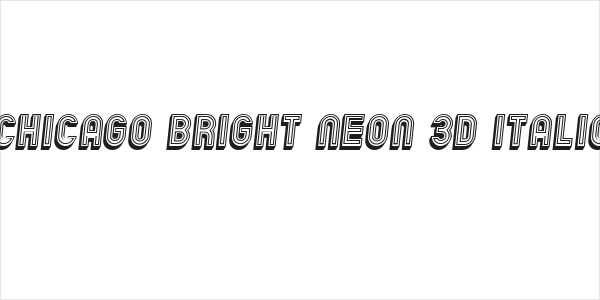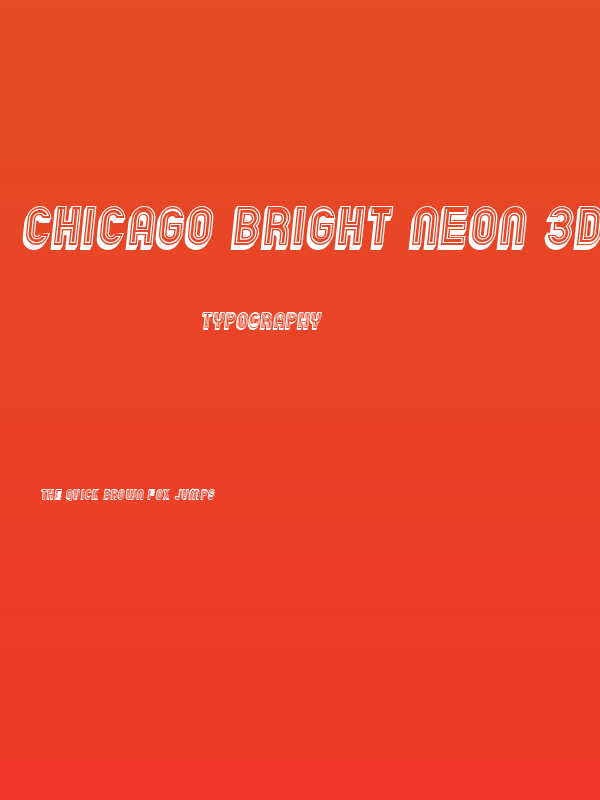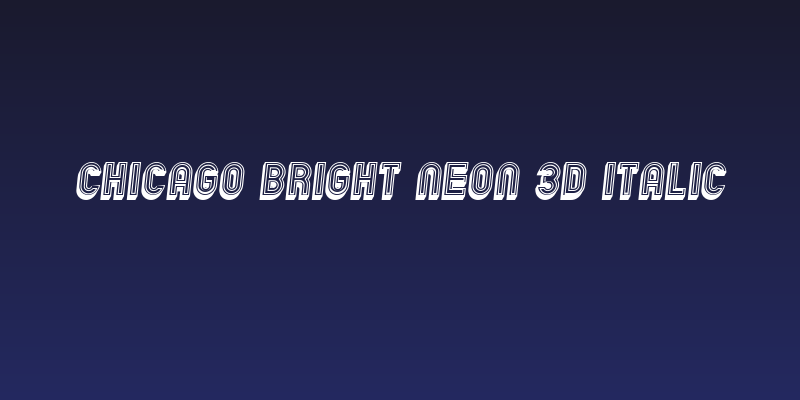
Chicago Bright Neon 3D Italic Font
Chicago Bright Neon 3D Italic Description
This font features a bold, three-dimensional design with a neon-like appearance. The letters are outlined with a thick black shadow that gives them a striking, illuminated effect. The italic slant adds a dynamic and energetic feel, making it ideal for eye-catching displays. The uppercase and lowercase letters maintain a consistent style, with rounded edges and a smooth flow. Numbers and special characters are designed to match the bold and vibrant aesthetic, ensuring a cohesive look across all text elements. The overall design is reminiscent of retro signage, perfect for projects that require a touch of nostalgia and flair.
| Overall Style | Retro, Decorative |
| Proposed Projects | Ideal for neon signs, retro-themed posters, event flyers, and branding that requires a bold statement. |